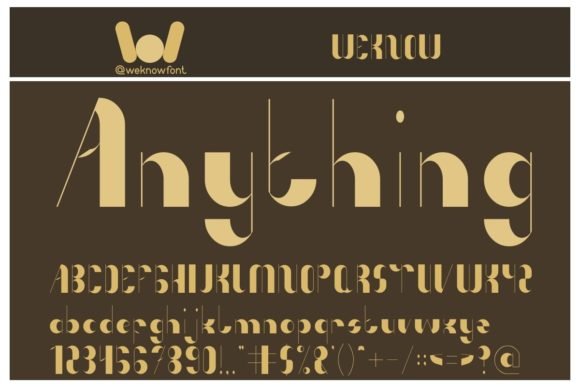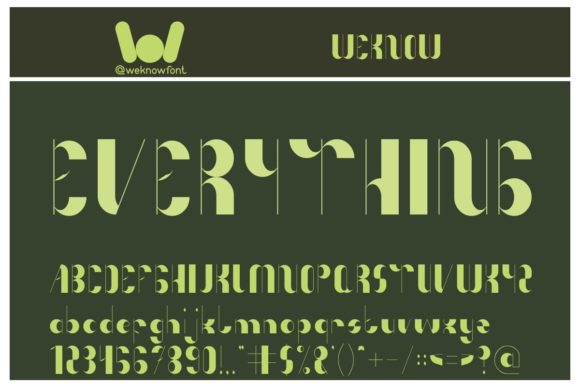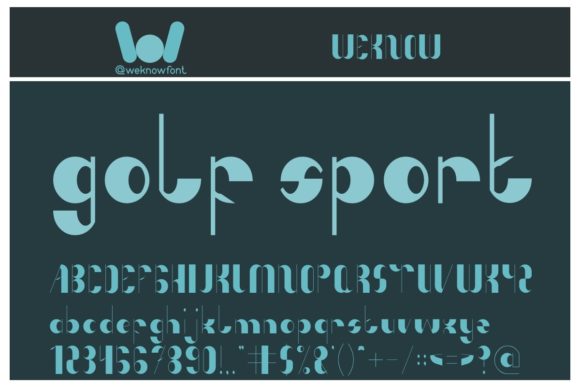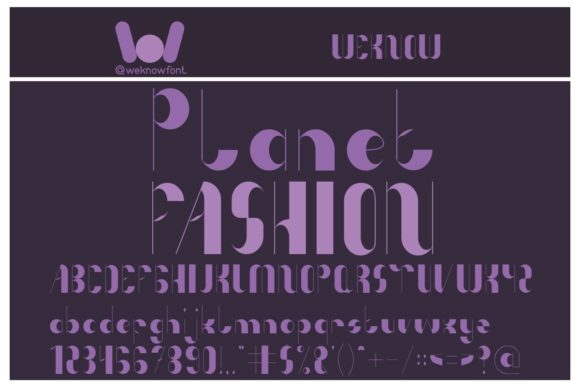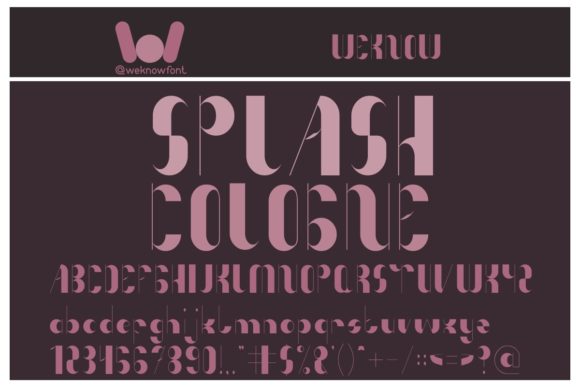
Unlock Your Creativity with Anything Font
Remember that moment when you’re brainstorming a new project, and the words just start flowing? You’re excited, and your mind is racing with ideas. That’s when you know you’re onto something special. And what better way to bring those ideas to life than with the perfect font? Enter Anything Font, a sleek, modern display font that’s guaranteed to elevate your creations.
Anything Font is designed to be versatile and adaptable, making it the perfect addition to any designer’s library. Whether you’re working on a tech startup, a futuristic sci-fi project, or a simple logo, this font has the potential to take your work to the next level. Its clean lines, geometric shapes, and futuristic feel make it an invaluable asset for designers looking to create a lasting impression.
Anything Font Key Features
- Font Family: A unique, multi-script font family that supports over 100 languages, including Latin, Cyrillic, Greek, and more.
- Size: Offers a wide range of font sizes, from 8pt to 72pt, making it suitable for various design applications.
- Resolution: Optimized for high-resolution displays, with precise rendering at 300 DPI and above.
- Unique Characteristics: Features a distinctive, modern design with subtle flair and texture, adding a touch of sophistication to any text.
- Language Support: Includes extensive language support, with over 100 languages and 1000+ glyphs, making it an ideal choice for global branding and communication.
Review of Anything Font
Anything Font is a unique and quirky typeface that has caught my eye. It has a certain charm to it, and I appreciate the designer’s willingness to experiment with unconventional shapes and forms.
- ✨ The font’s playful personality shines through in its irregular letterforms, making it perfect for titles and headings where you want to grab attention.
- ✨ The font’s flexibility in terms of line height and spacing allows for a lot of creative freedom when using it in different contexts.
- ✨ The font’s eccentricity makes it stand out in a crowd, which can be a great asset for designers looking to add some personality to their projects.
- ⚠️ The font’s irregularities can sometimes make it difficult to read, especially in large blocks of text.
- ⚠️ The font’s eccentricity can also make it difficult to pair with other fonts, as it can clash with more traditional or conservative typefaces.
- ⚠️ The font’s unique shape can also make it more prone to errors in digital environments, such as when it’s used in text fields or input forms.
Overall, I think Anything Font is a great choice for designers who want to add some personality and whimsy to their projects. While it may not be the most practical choice for large blocks of text or formal documents, it’s a great option for titles, headings, and other contexts where you want to make a statement.
The Anything Font is ideal for creative projects, such as:
- Graphic design
- Logo design
- Typography projects
- Marketing materials
Open Sans is a clean and modern sans-serif font that’s highly legible and works well for digital products and interfaces. It’s also a great choice for body text, as it’s easy to read and understand. When to use: digital products, apps, and websites that require a clean and modern aesthetic.